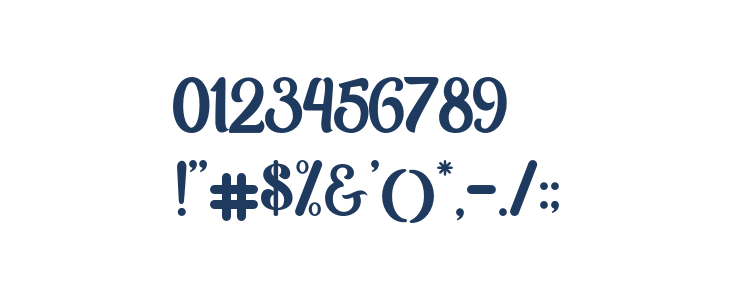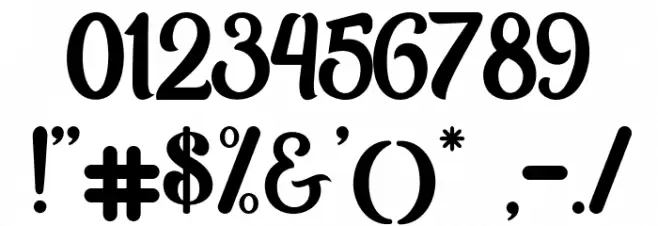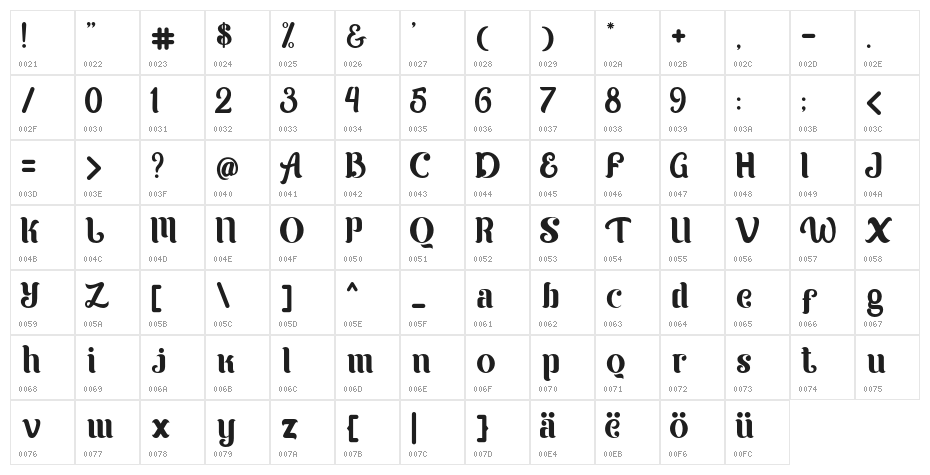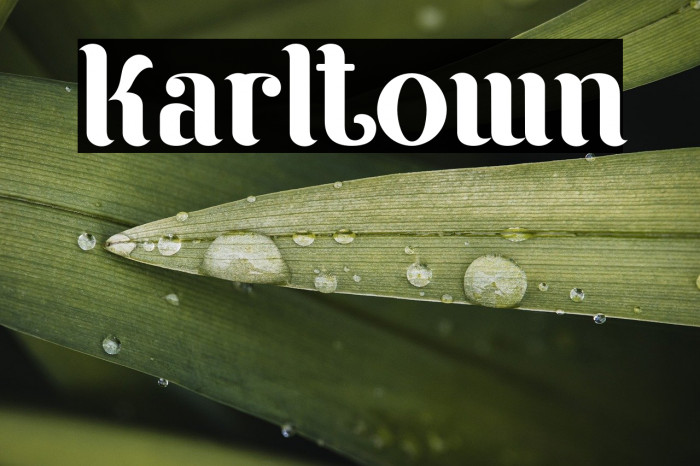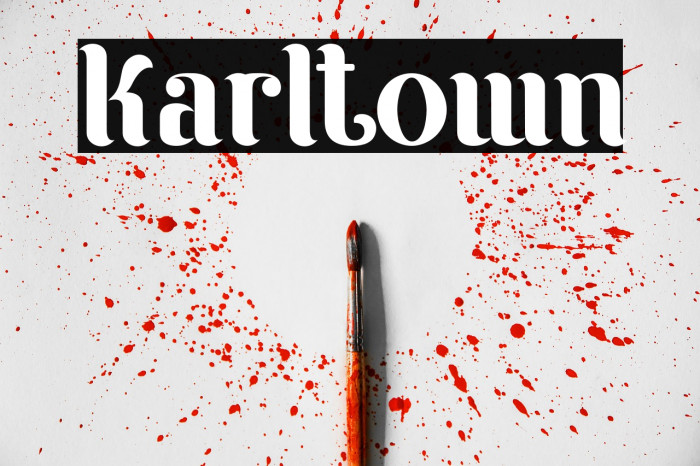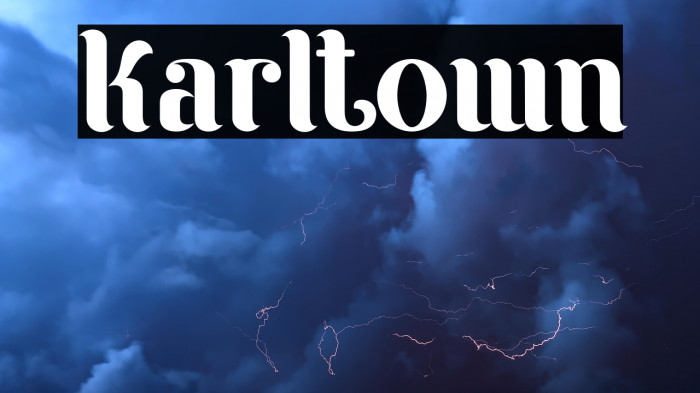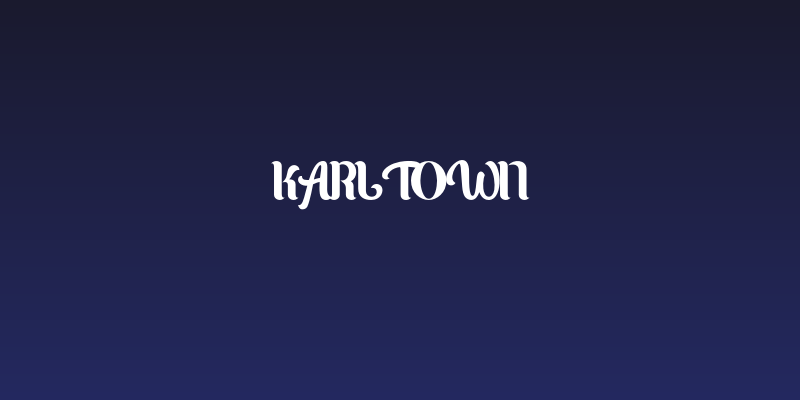
Karltown Font
Karltown Description
This font features a bold and playful design with a distinct retro flair. The characters are rounded and thick, giving them a strong presence. The uppercase letters have a unique style with exaggerated curves and flourishes, while the lowercase letters maintain a consistent flow. The numerals are equally bold, ensuring readability and impact. Special characters are creatively designed, adding to the font's overall charm. This typeface is ideal for projects that require a touch of nostalgia and fun, making it perfect for eye-catching headlines and creative designs.
| Overall Style | Vintage |
| Proposed Projects | Ideal for vintage-themed posters, playful branding, eye-catching headlines, and creative design projects. |